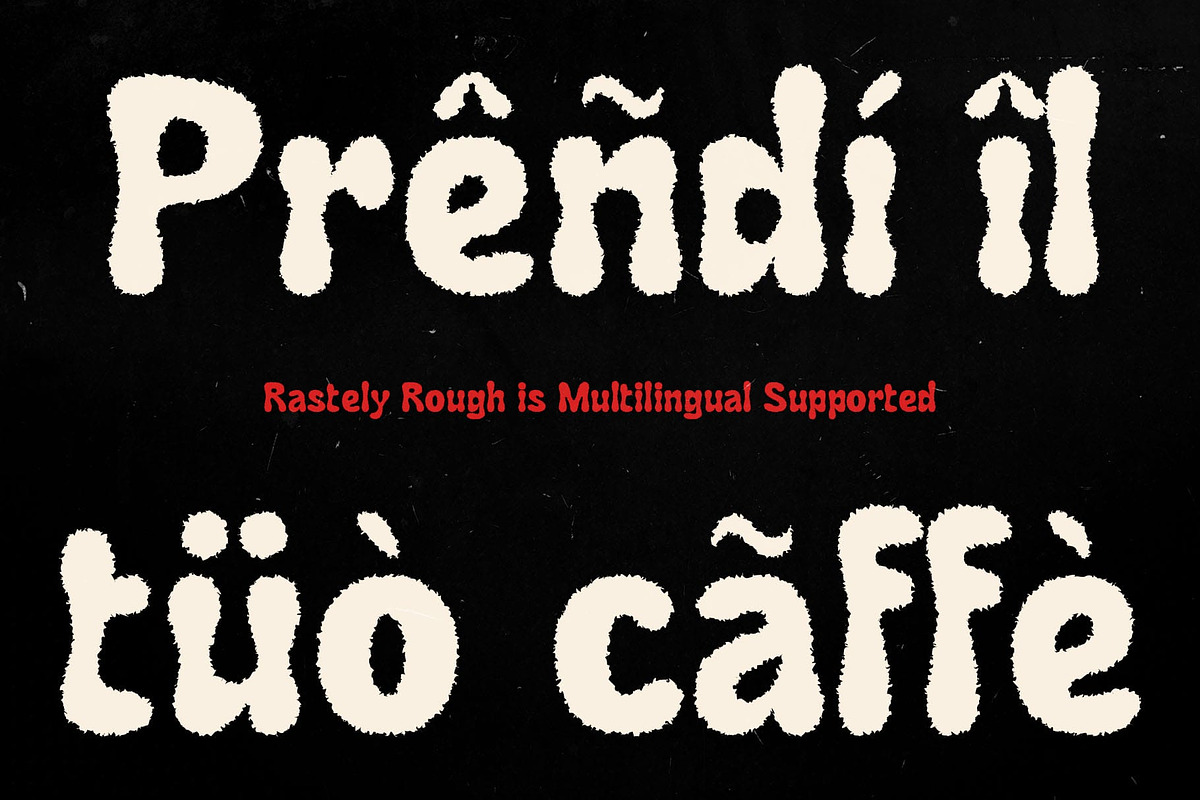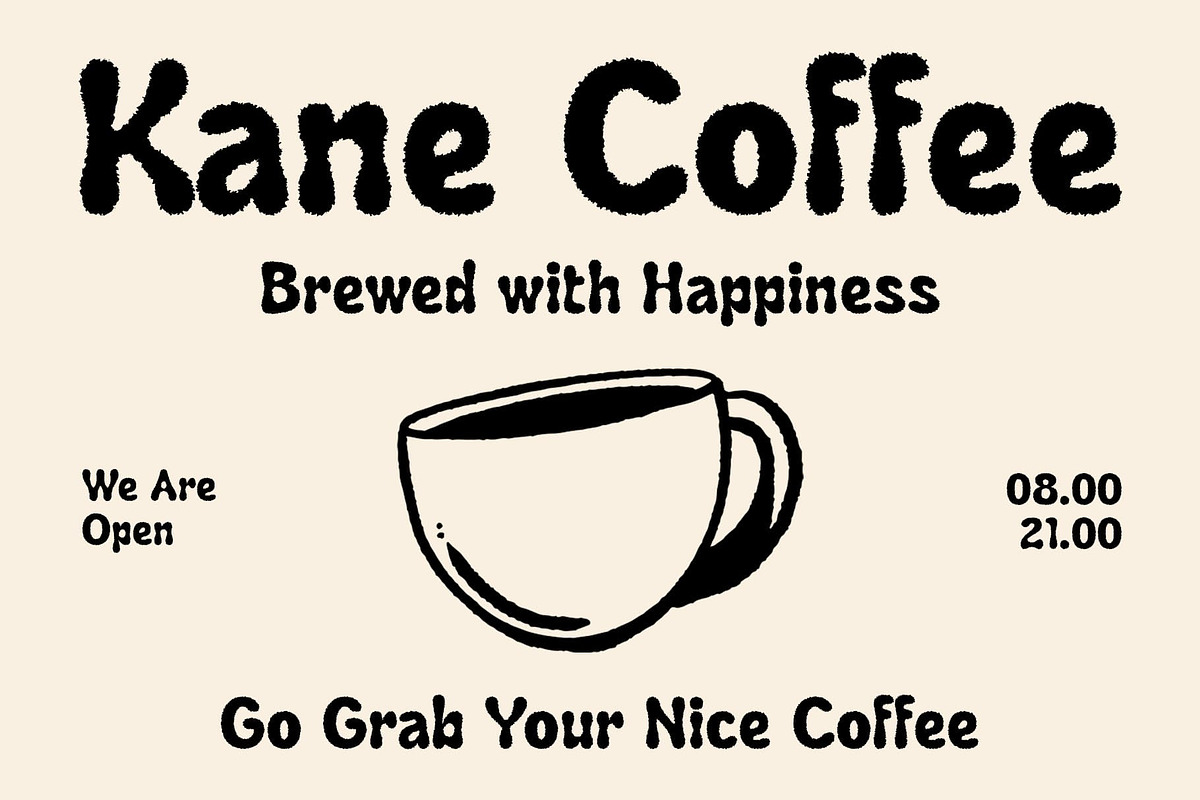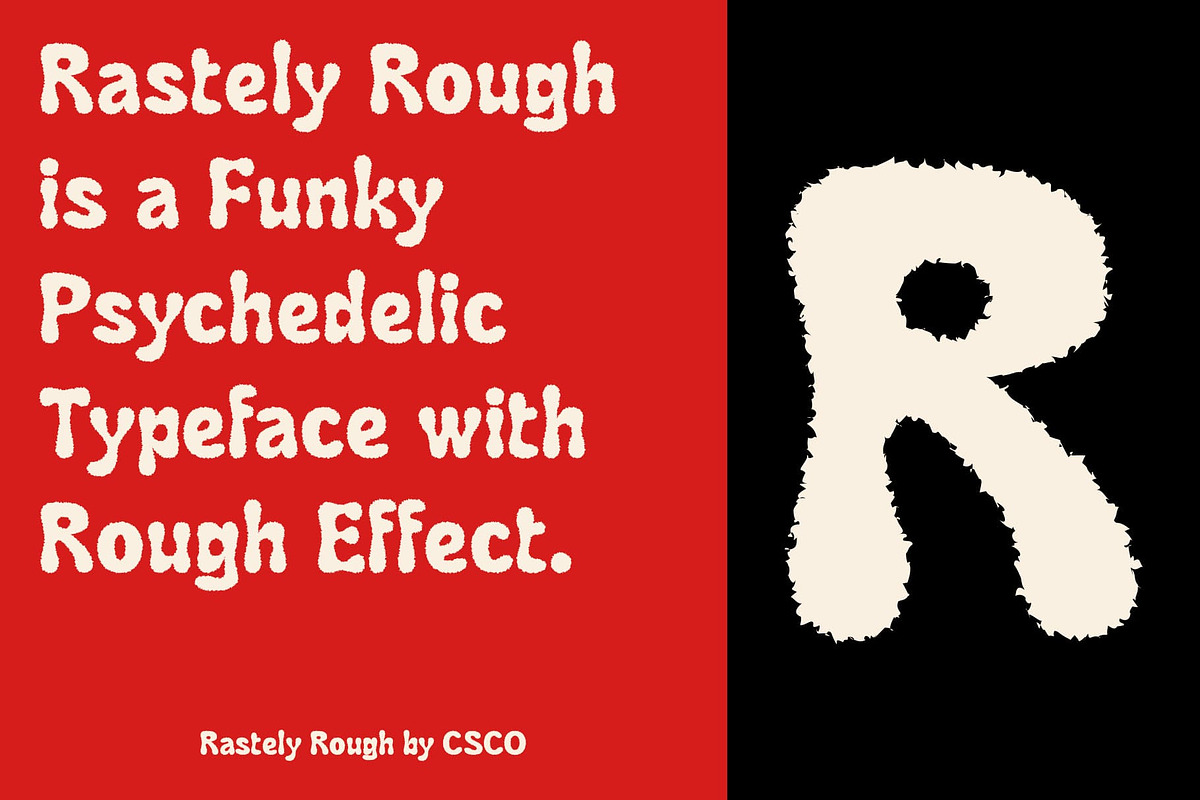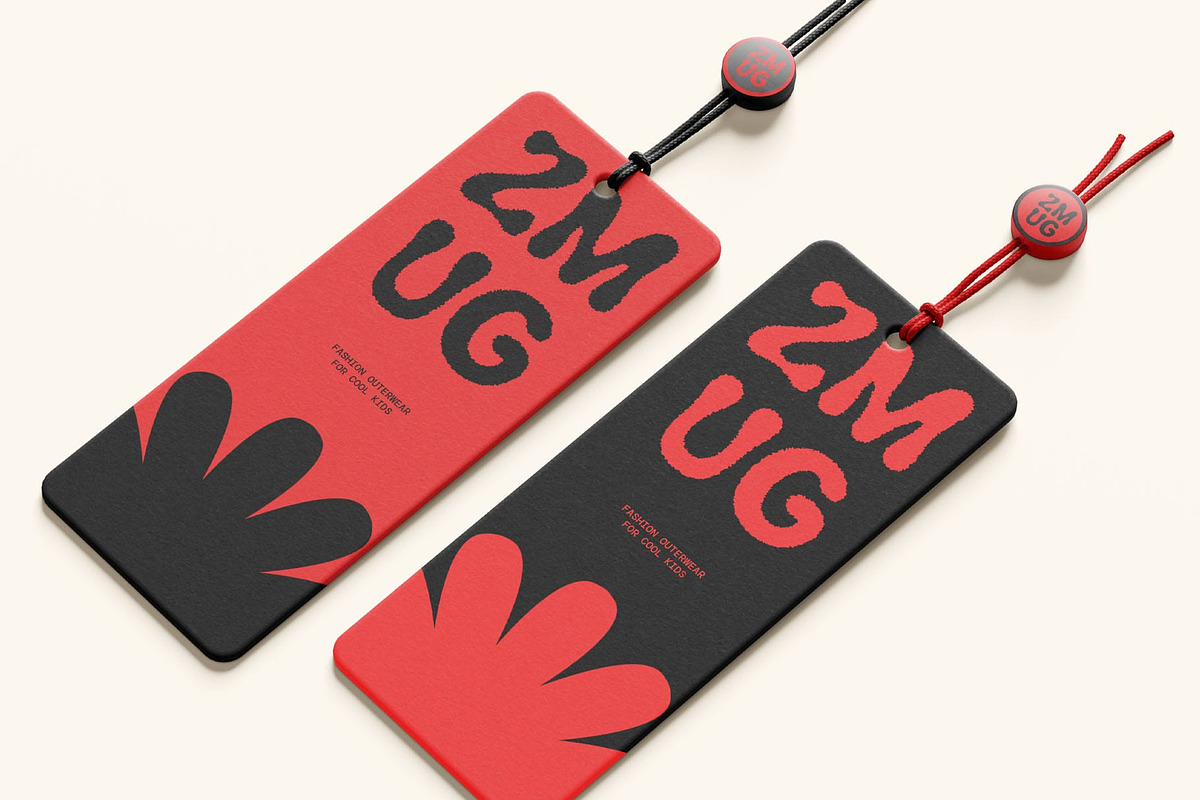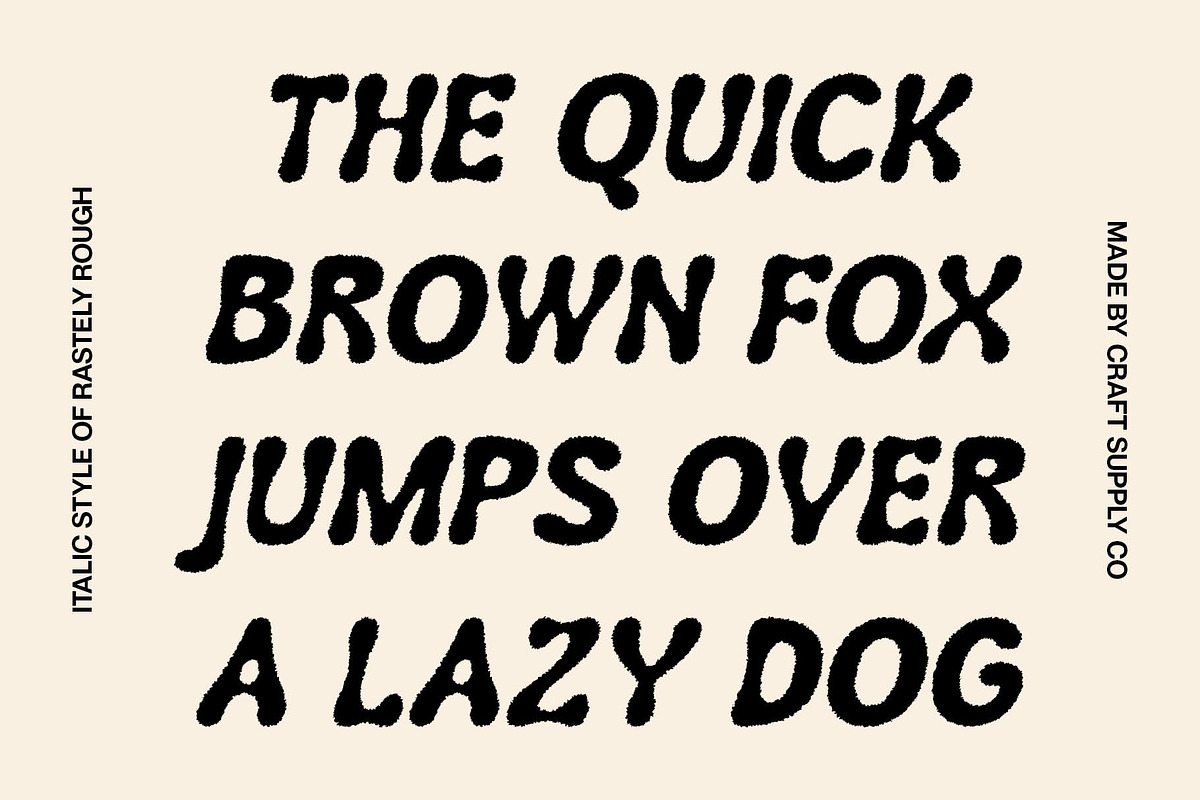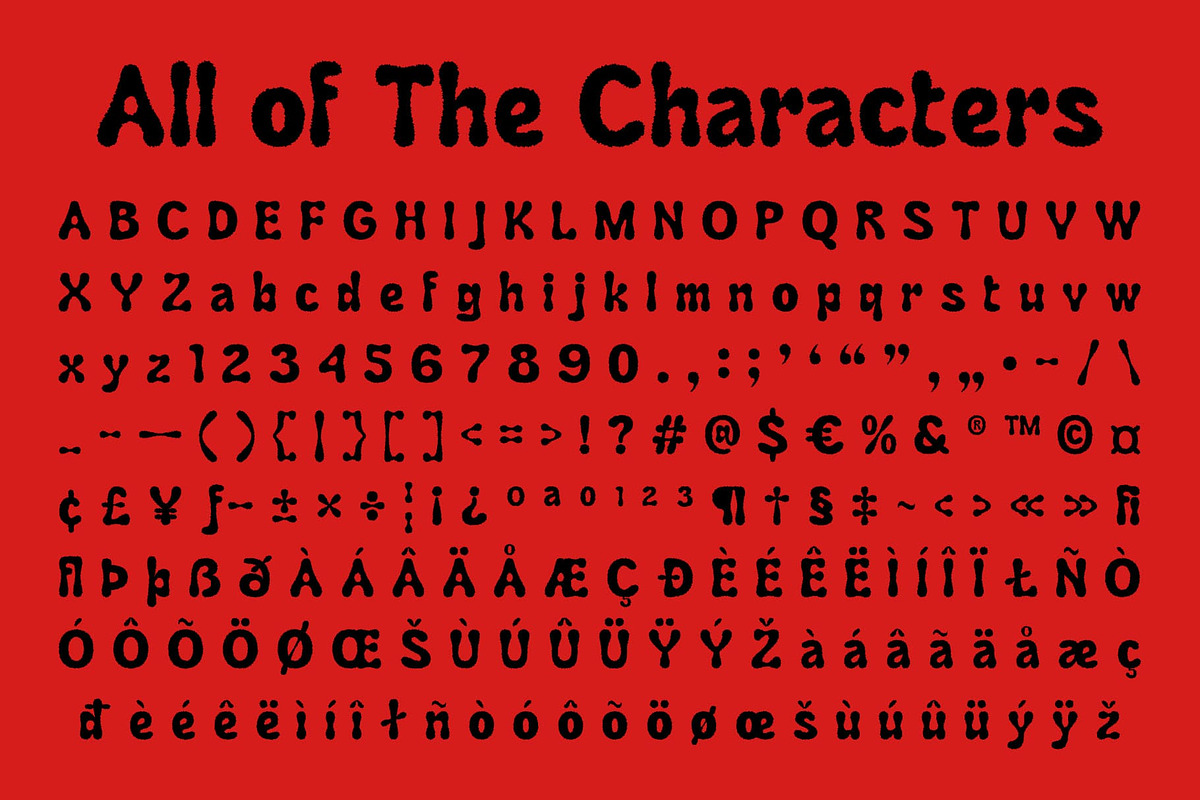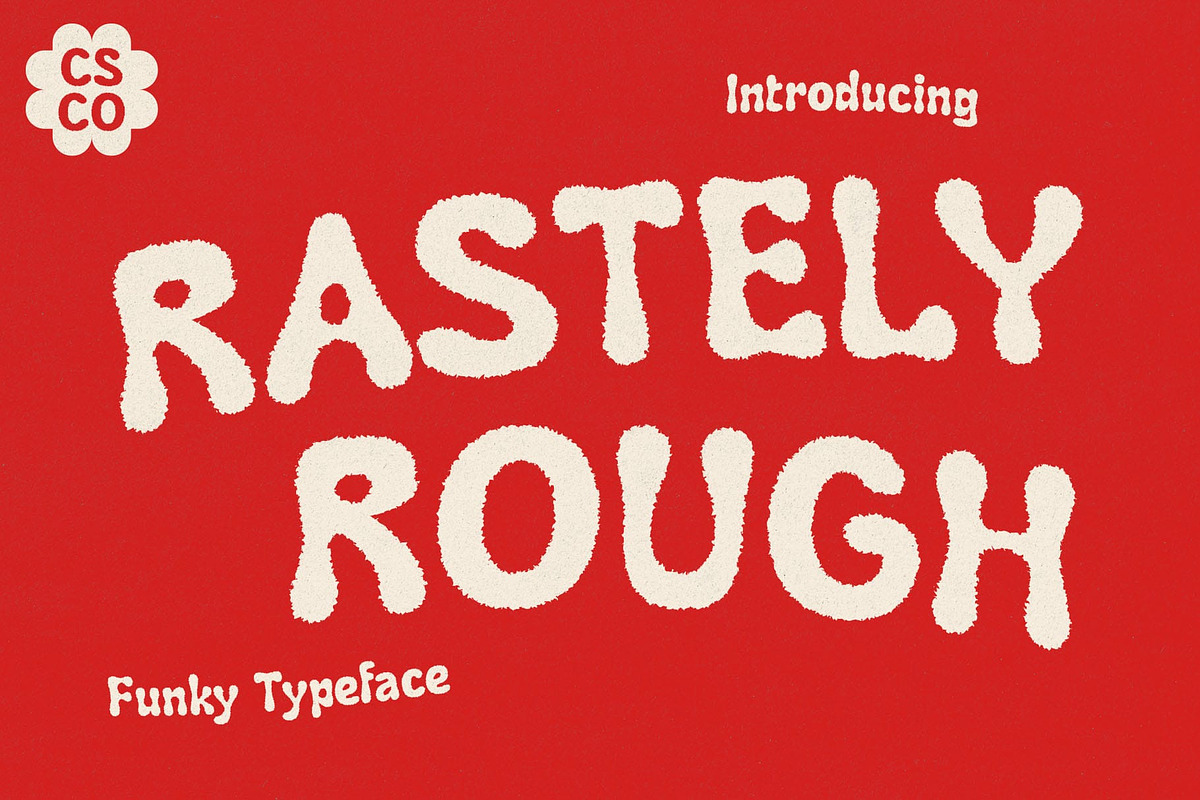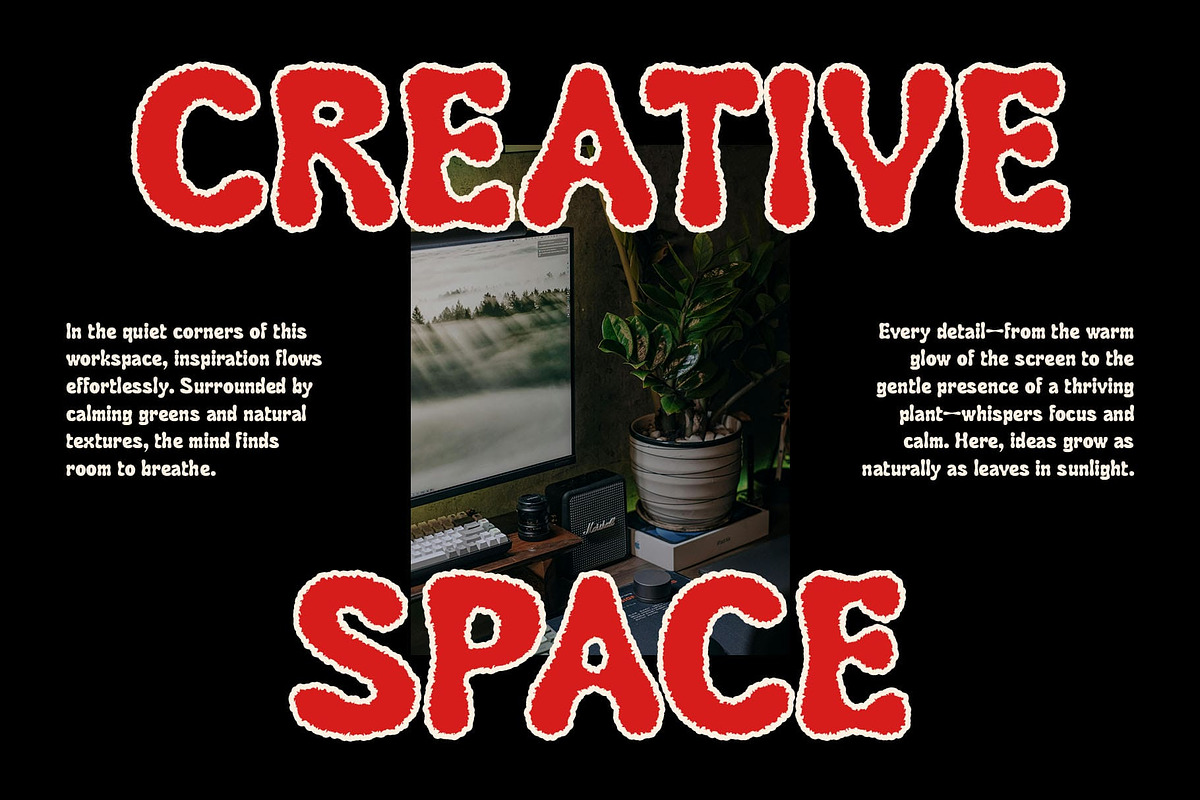
Rastely Rough
Rastely Rough Font – Retro Groove with a Gritty Soul
Groovy Shapes with ’90s Flair Rastely Rough is a display font that brings the spirit of the ’90s to life through bold, funky letterforms and dynamic curves. Its playful and expressive shapes exude personality, making it a perfect choice for designs that want to capture attention with a fun, nostalgic twist.
Playful Energy with Bold Character Every letter in Rastely Rough radiates personality. The font’s playful rhythm and quirky structure give it an energetic tone that feels alive and spontaneous. It’s the perfect typeface for creatives looking to make a bold statement—ideal for music posters, party flyers, social media graphics, and editorial layouts that aim to be vibrant, youthful, and full of flair.
Rough Texture for Vintage Appeal A rugged, hand-drawn texture overlays each letterform, adding a gritty, imperfect edge that enhances its retro charm. This rough effect evokes the feel of old-school screen printing and DIY flyers, giving the font an organic, tactile quality that feels both nostalgic and authentic.
Made for Bold, Expressive Design Whether you’re channeling retro culture or creating something entirely new, Rastely Rough brings a bold and stylish energy to any visual project. Its combination of funky shapes, vintage texture, and playful spirit makes it perfect for branding, editorial design, album covers, and beyond.